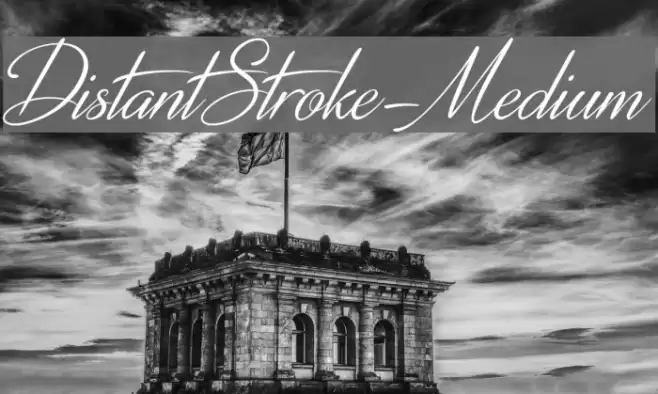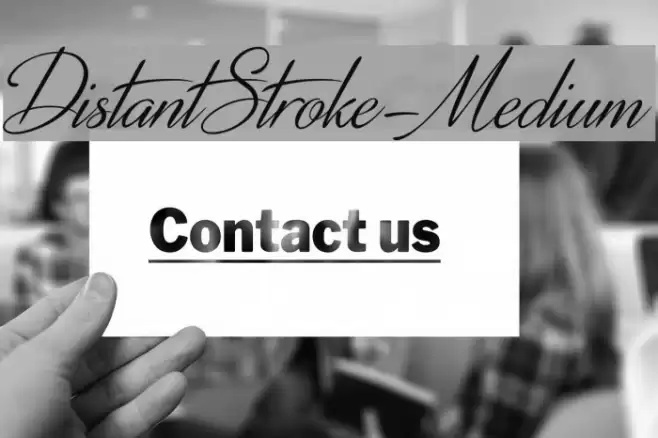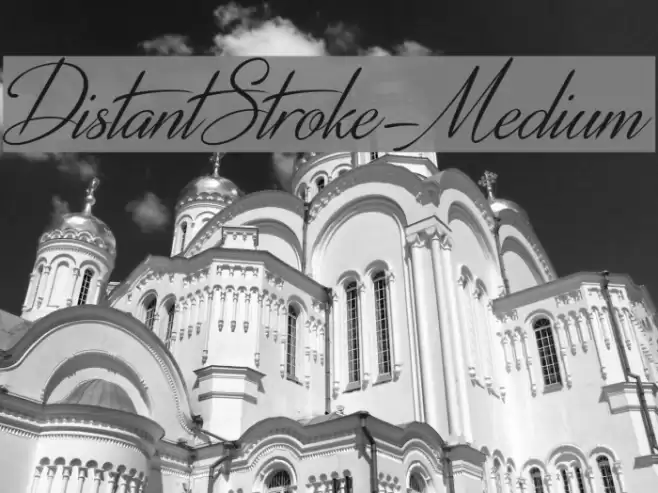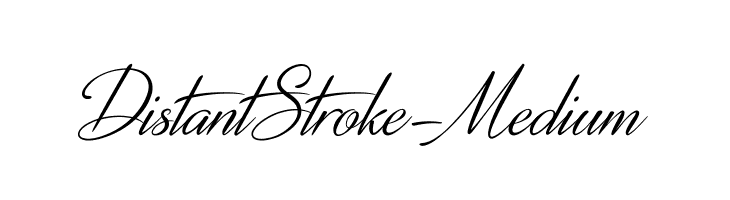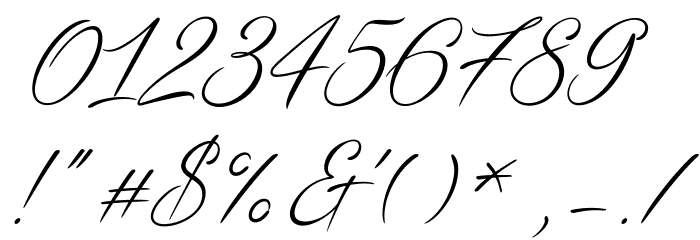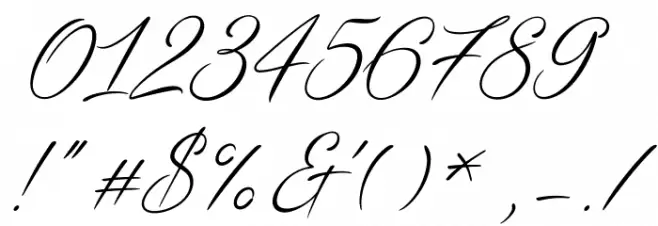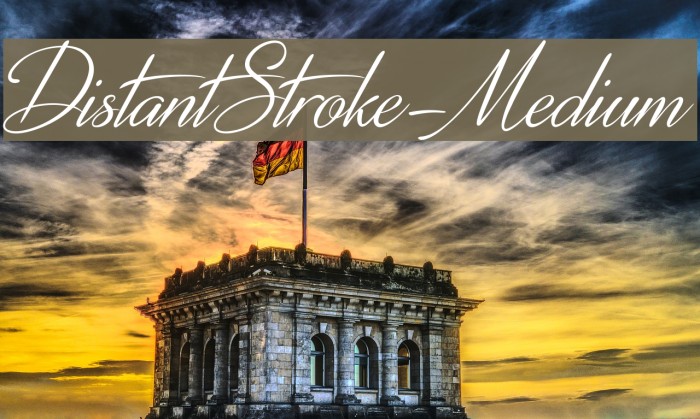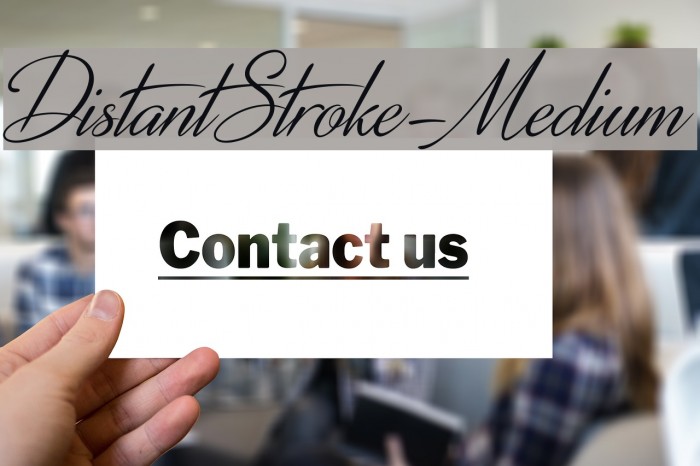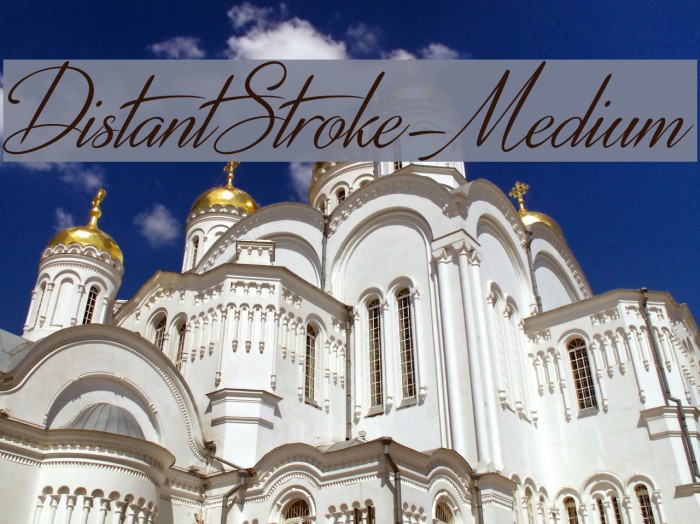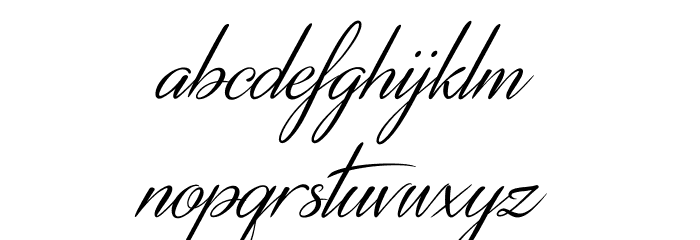
DistantStroke-Medium
This elegant script font features a flowing, cursive style with high contrast between thick and thin strokes. The characters are connected, giving it a seamless and fluid appearance, reminiscent of traditional calligraphy. The uppercase letters are ornate and sweeping, while the lowercase letters maintain a graceful and consistent flow. The numerals and special characters are designed to match the overall aesthetic, providing a cohesive look across all elements. This font exudes sophistication and is ideal for projects that require a touch of elegance and refinement.
An elegant, high-contrast script font with a flowing, cursive style.
- Proposed Projects: Ideal for wedding invitations, elegant branding, luxury product packaging, and formal event materials.
- Category: Script
- Character Spacing: Tight
- Contrast: High
- Overall Style: Elegant
- Use Case: Logos, Invitations, Branding